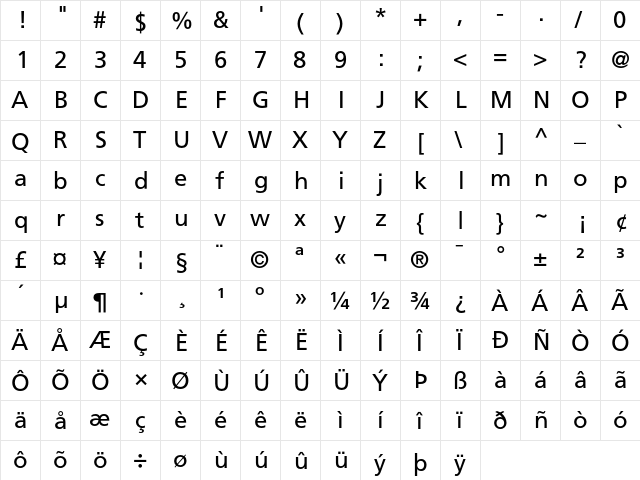
Frutiger 55 Roman
Design Context for Frutiger Typeface
Frutiger takes a measured approach to typography — its balanced proportions and neutral character make it a reliable workhorse for both digital and print work.
Pro Tip: Use Frutiger in both headline and body roles to test its range before committing to a single application.